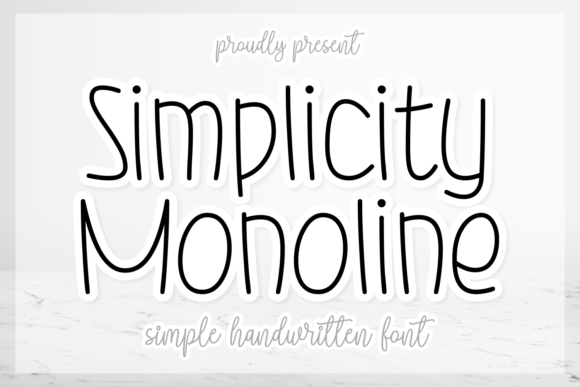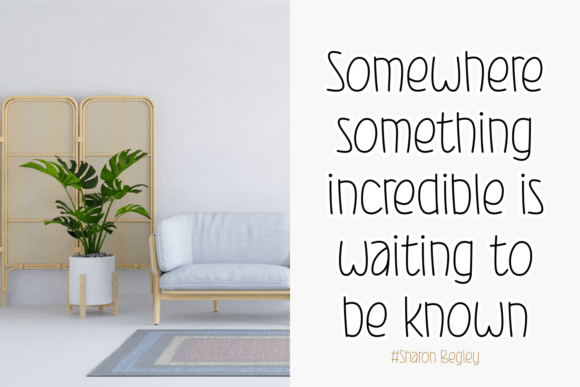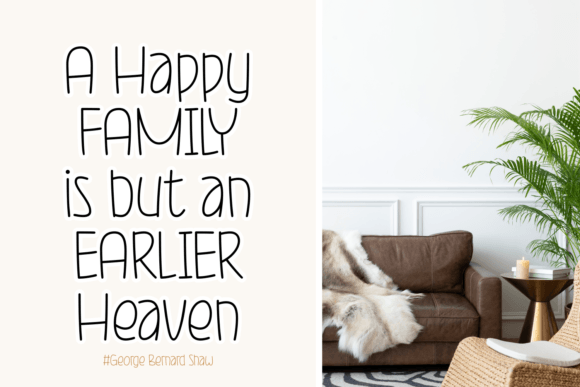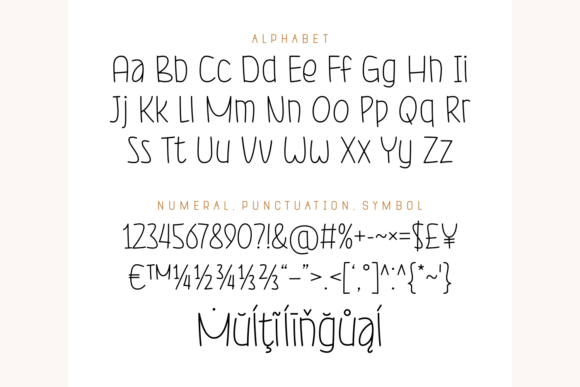
Simplicity Monoline Font
Simplicity Monoline is a childish, easy-to-read handwritten font that conveys impeccable friendliness. Whether you’re using it for crafts, digital design, presentations, or making greeting cards, this font has the potential to become your favorite go-to font, no matter the occasion!